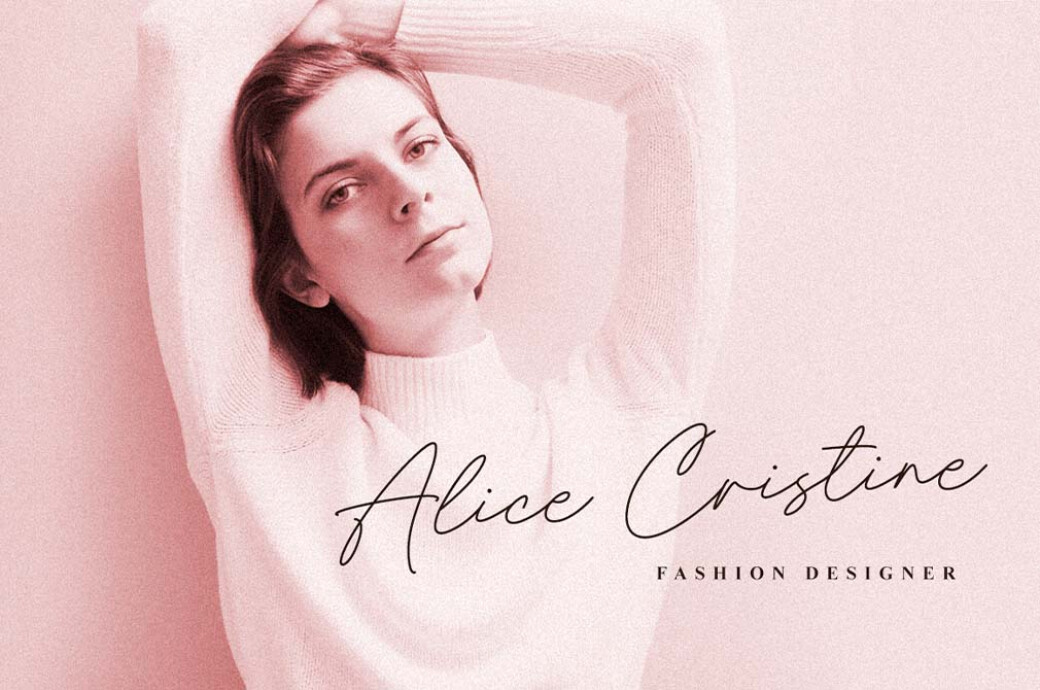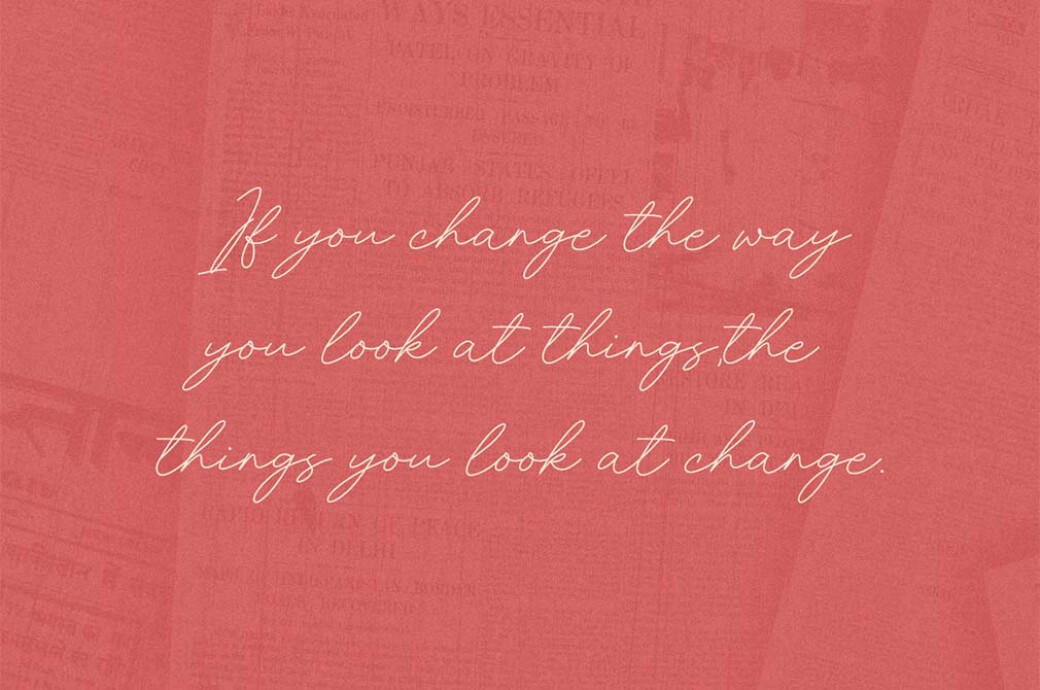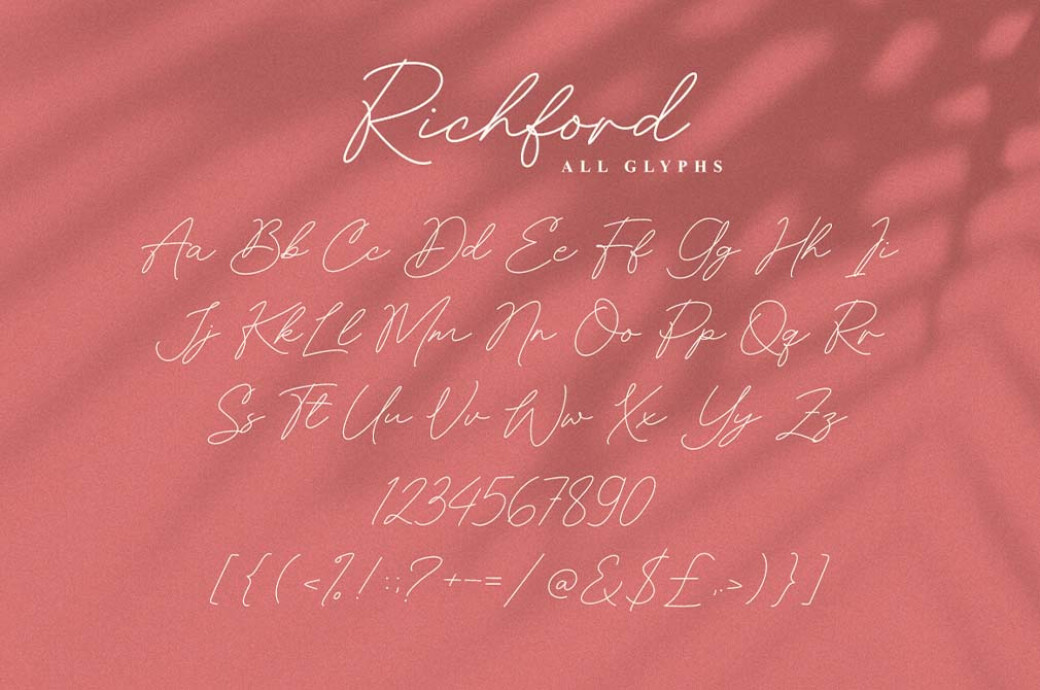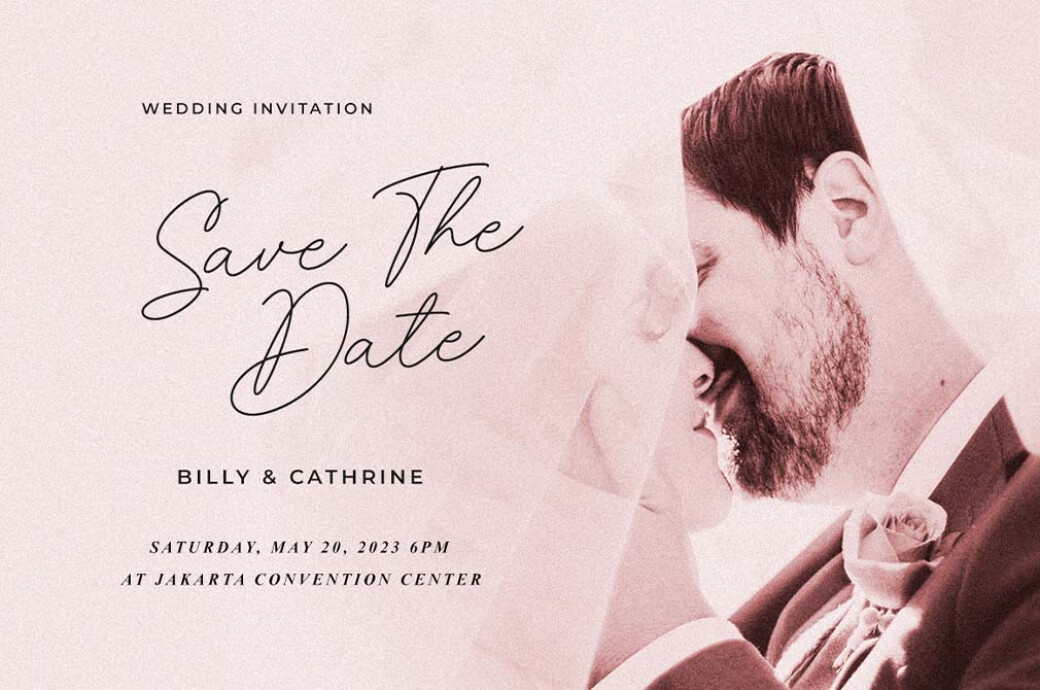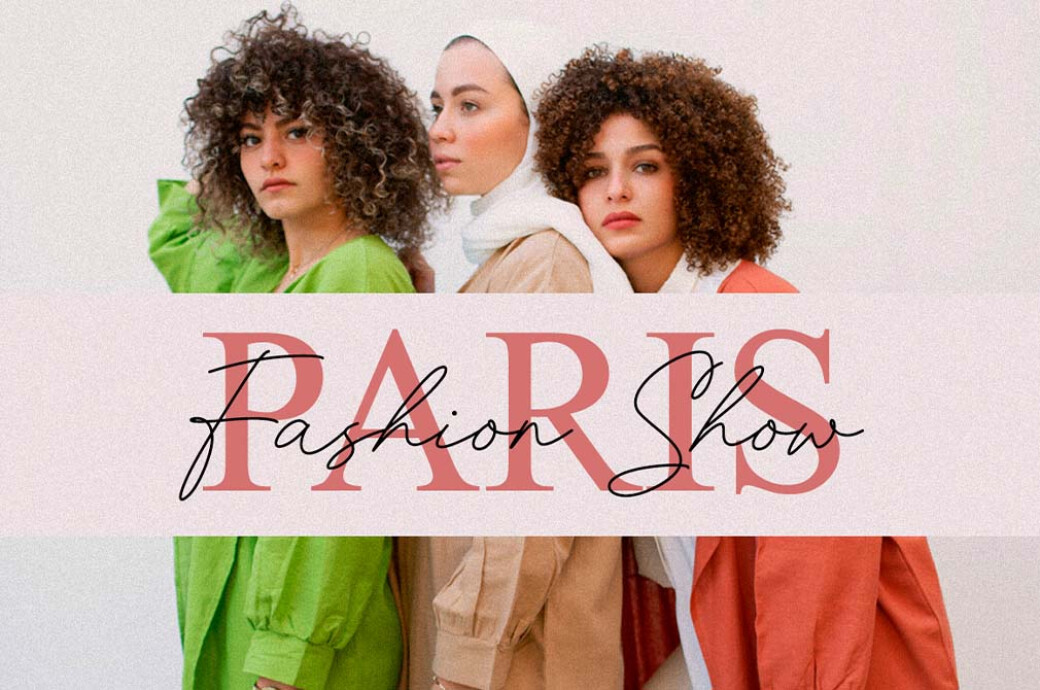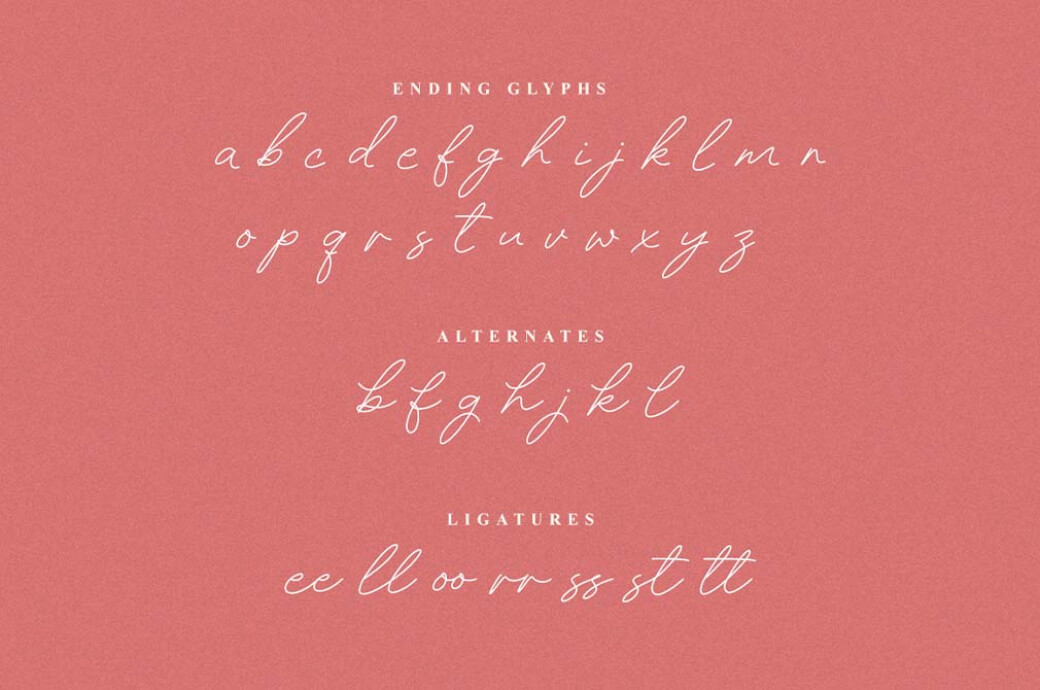
Richford Signature Font
Refined letterforms and impeccable strokes — yes, that's Richford. This font is the perfect choice for creating a personalized and luxurious touch.Designed with precision and attention to detail, Richford captures the essence of a handcrafted signature. Its fluid curves and distinctive flourishes create a sense of sophistication, making it ideal for branding, logos, wedding invitations, and more. Along with a complete set of characters, the font features a set of alternates and ligatures. Multilingual support for European languages is also included.